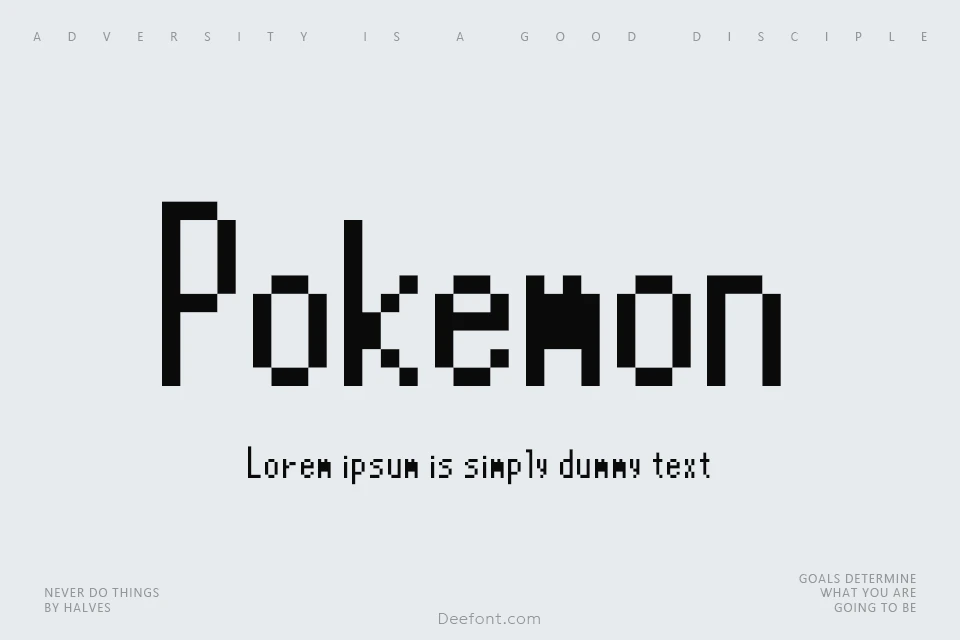
Pokemon X and Y Font
Font used in XYORAS battle bars, glyphs include custom-made cyrillic and latin, the custom pokedollar is custom as the dollar sign.